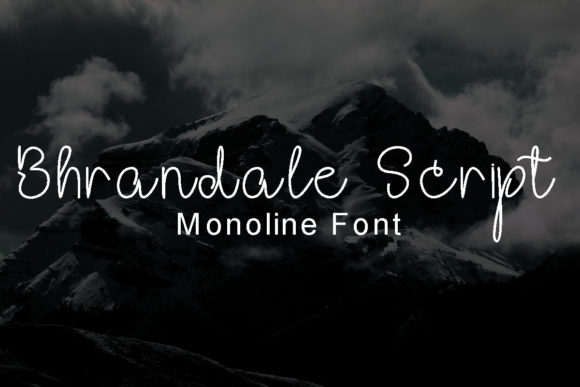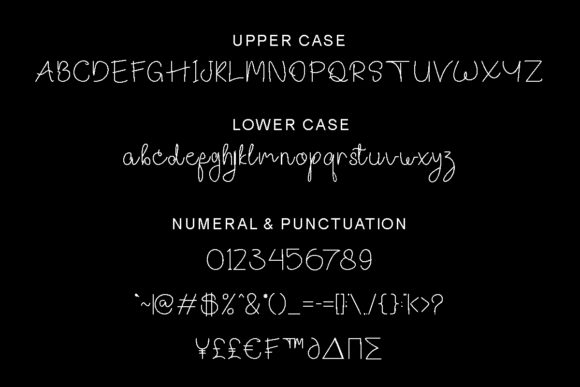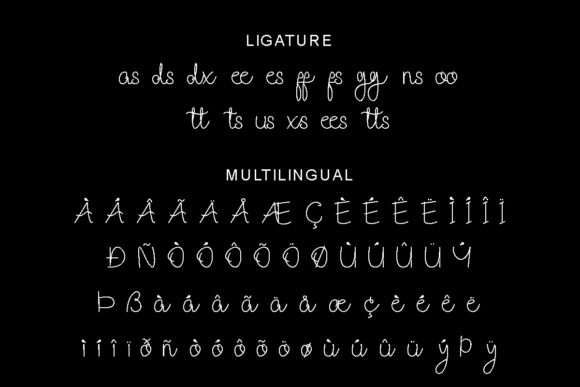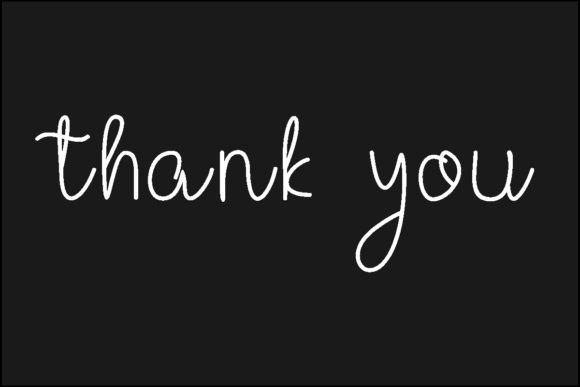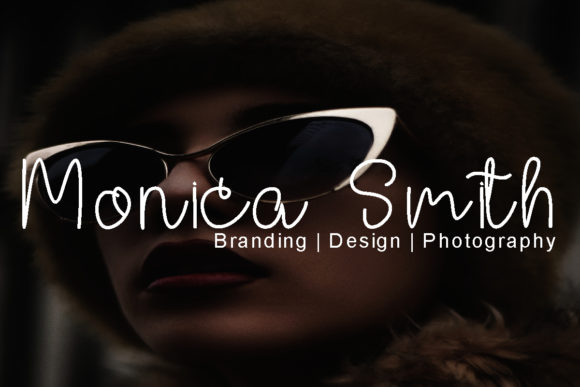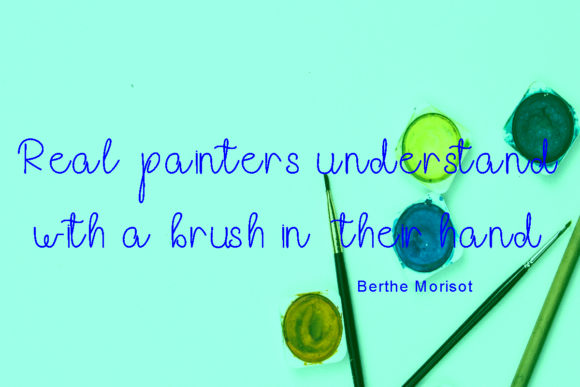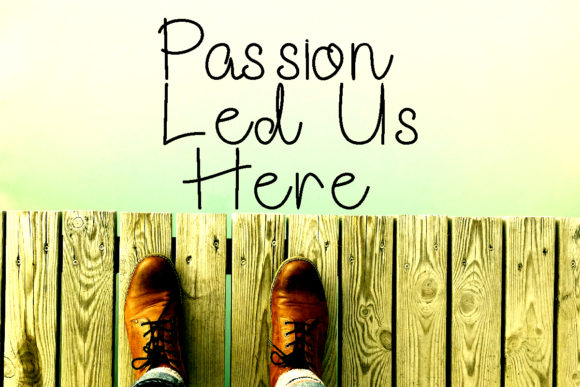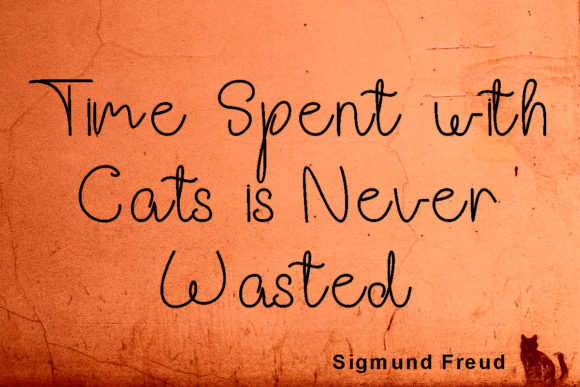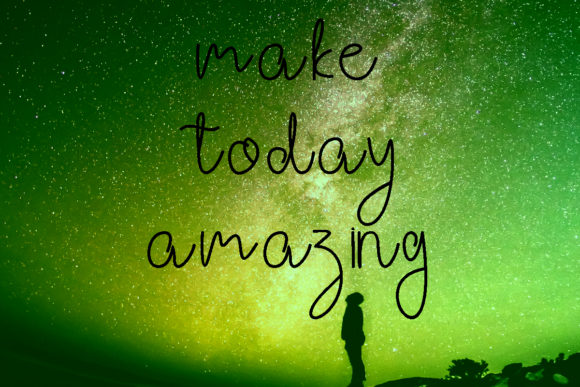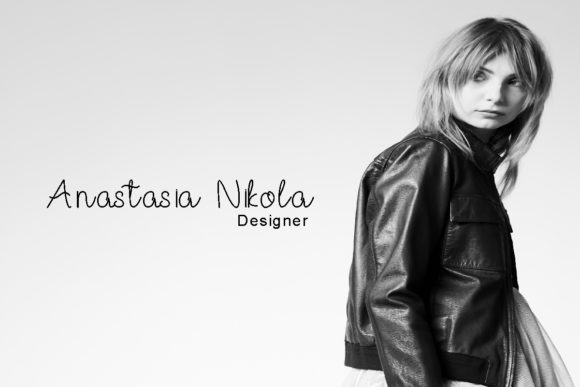
Bhrandale Script Font
About Bhrandale Script Font
Bhrandale is a unique and stunning handwritten font with a bold twist. It will add a personal feel to any design project.